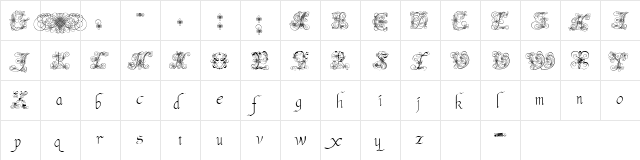
Andrade Swash Font Preview
Andrade Swash
Andrade Swash Font Details
| Style | Swash |
Design Context for Andrade Typeface
Andrade brings a calligraphic fluidity to the page — its connecting strokes and expressive curves give it an unmistakably human quality.
Font Pairing: Combine Andrade with a simple geometric sans for maximum contrast — the tension between flowing curves and clean structure is a classic typographic pairing.
Pro Tip: Pair Andrade with a clean sans-serif for supporting text. The contrast between fluid script and geometric structure creates an elegant typographic hierarchy.